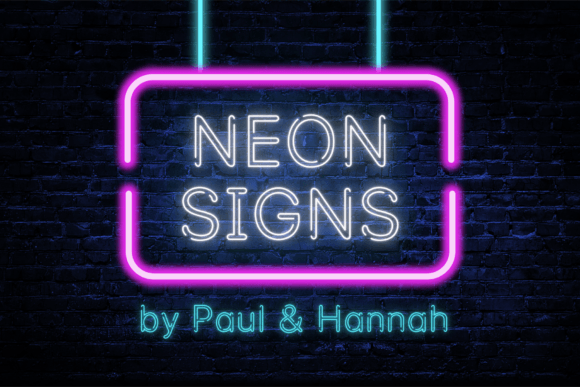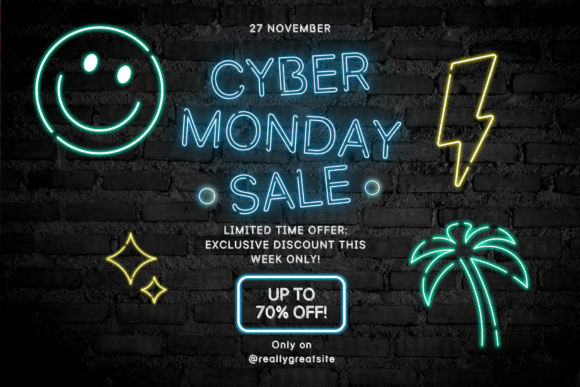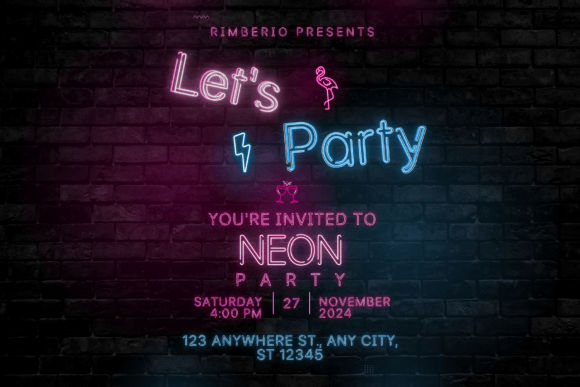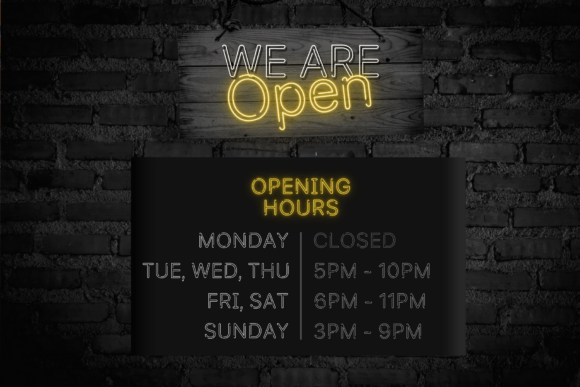
Neon Signs Font
About the Neon Signs Font
Make a bold statement with Neon Signs Font, a powerful and memorable font. Neon Signs Font is inspired by neon signs, the distinctive symbols often seen in storefronts or on signs displaying messages for various occasions. Its distinctiveness will help the creative works stand out more if the neon signs are expressed in the form of letters.
This font excels in headline applications, short impactful statements, and branding projects requiring a bold, retro aesthetic. It’s ideal for posters, signage, and packaging where a strong visual presence is needed. However, its highly stylized nature makes it unsuitable for body text or long paragraphs; readability suffers at smaller sizes.
Neon Signs Font’s core personality is energetic and retro-modern. It projects a sense of fun, boldness, and a touch of nostalgia, making it perfect for brands targeting a younger demographic or those with a vibrant, playful image. Avoid using it for projects requiring sophistication or minimalism.
Pairing it with a clean sans-serif like Open Sans for body copy provides excellent contrast and readability. For a more vintage feel, a slightly distressed serif font would complement its retro vibe. Alternatively, a simple geometric sans-serif could offer a modern counterpoint.
Neon Signs Font Usage Examples
Neon Signs Font Example